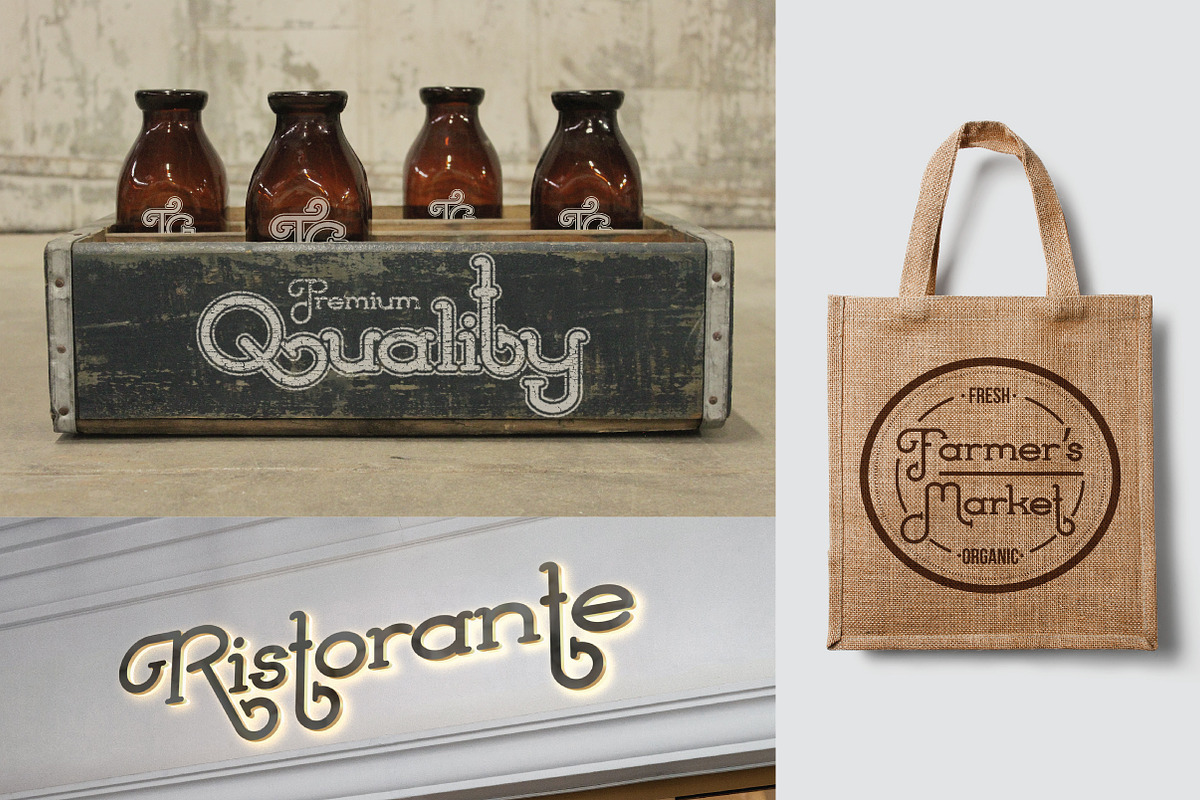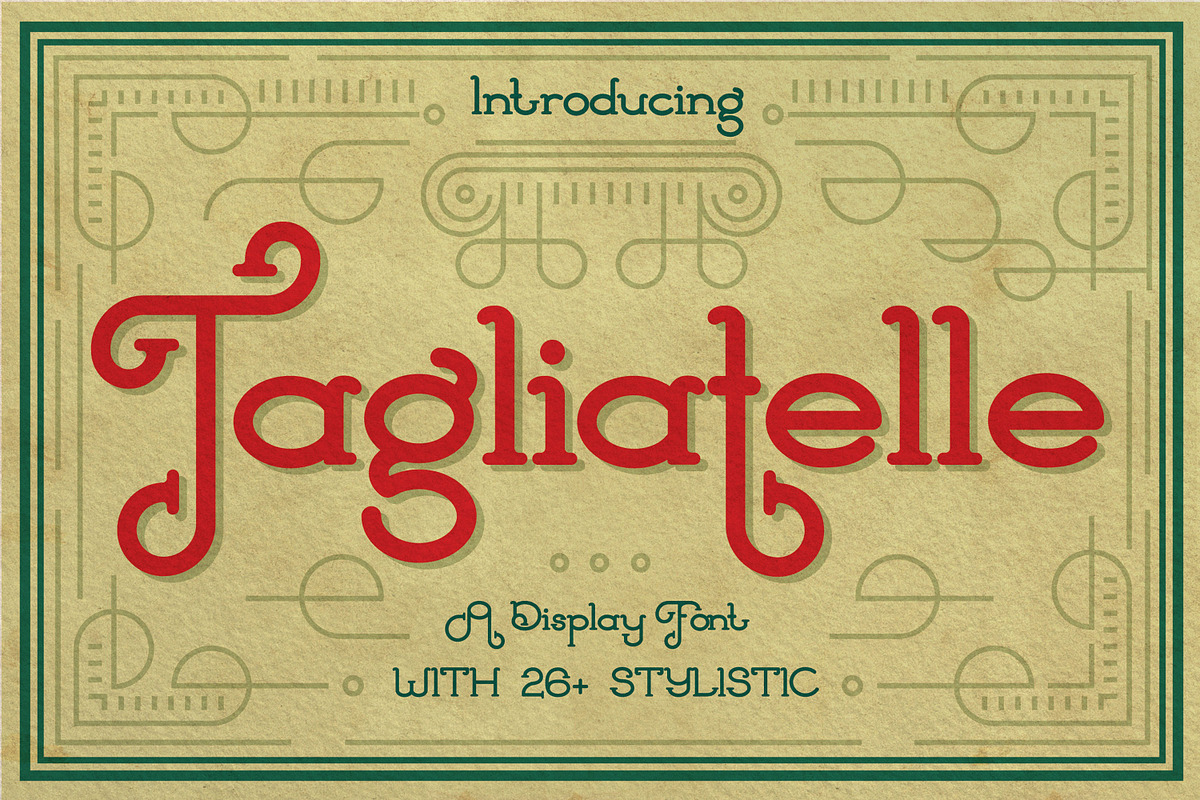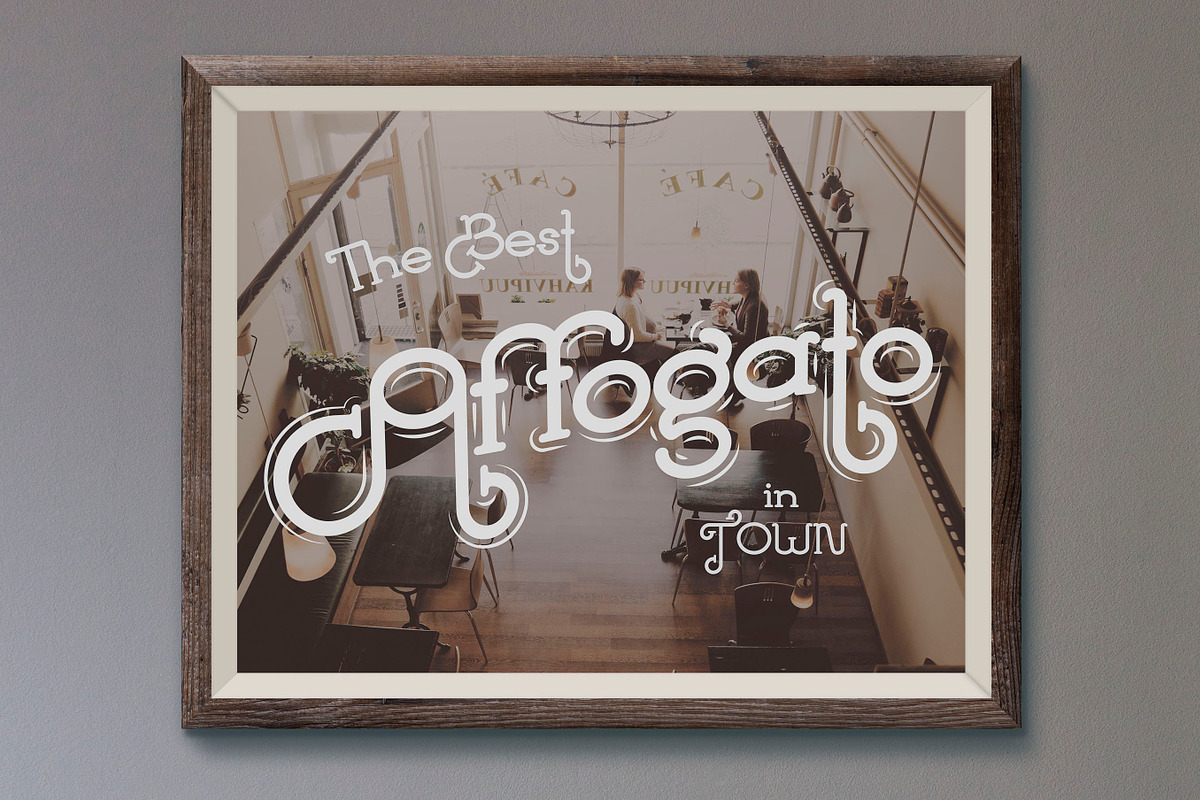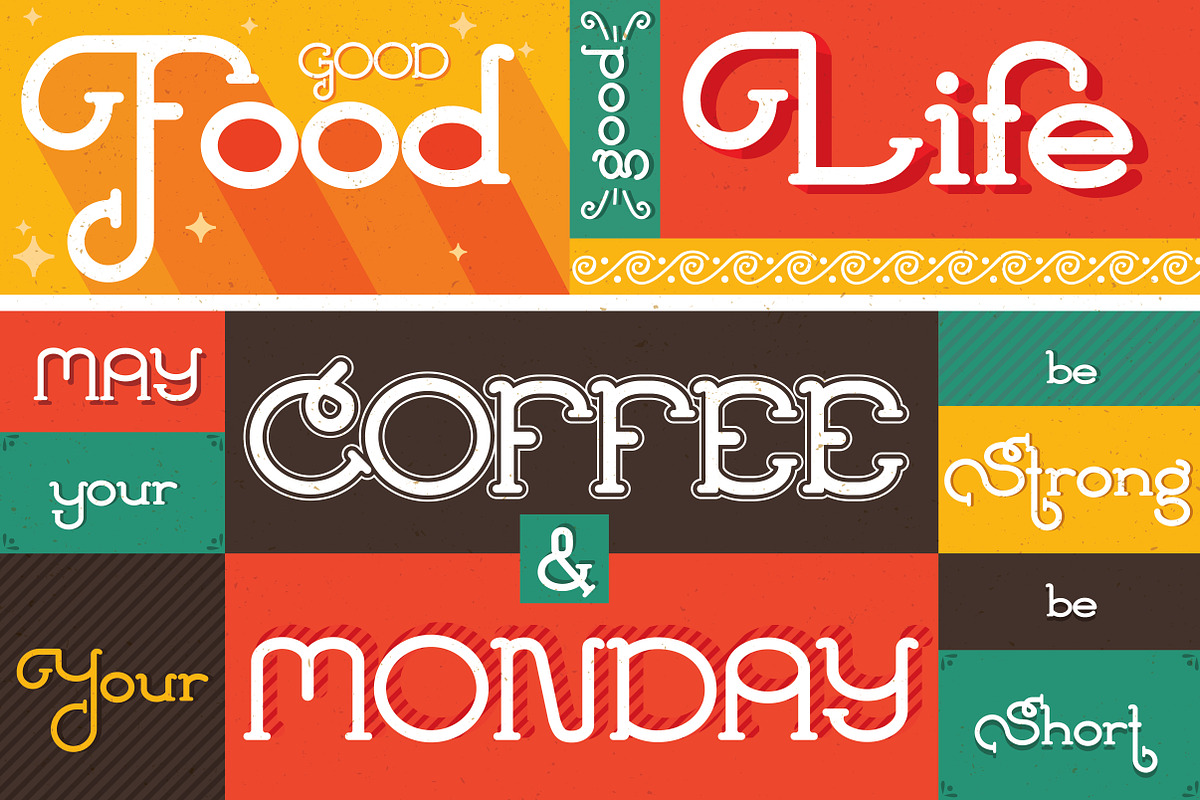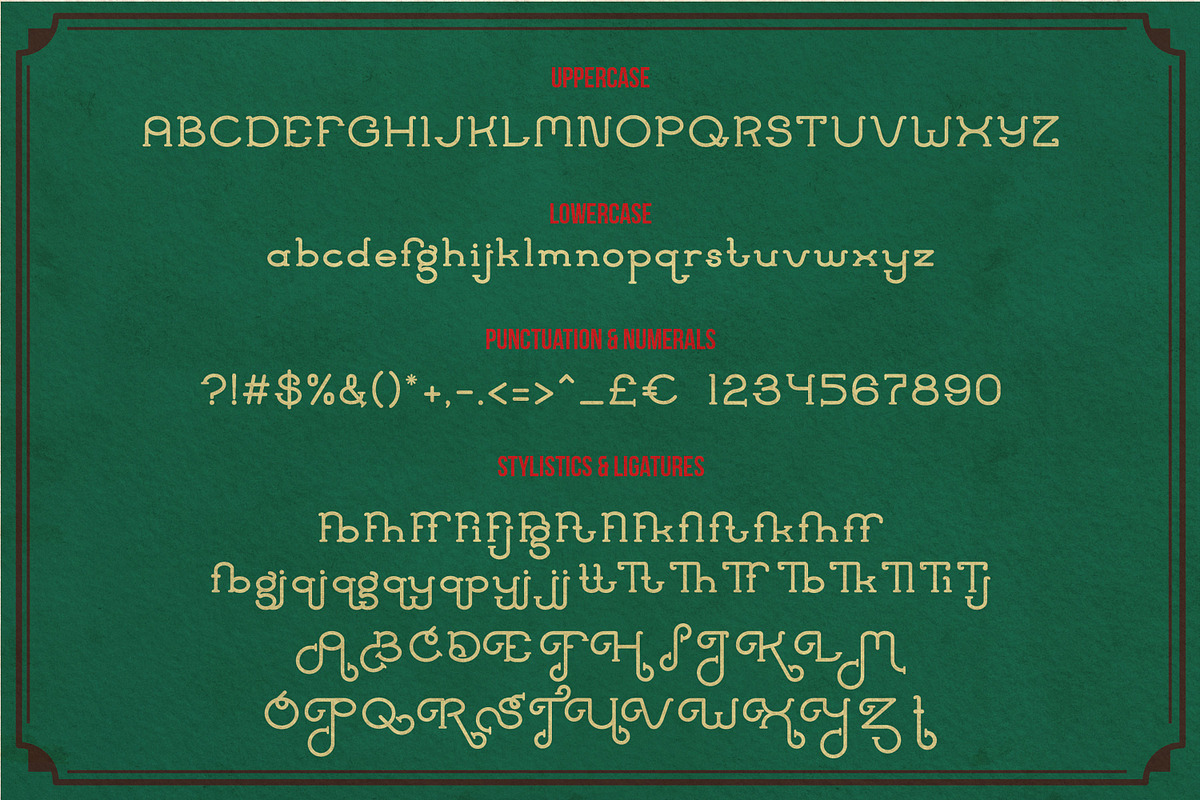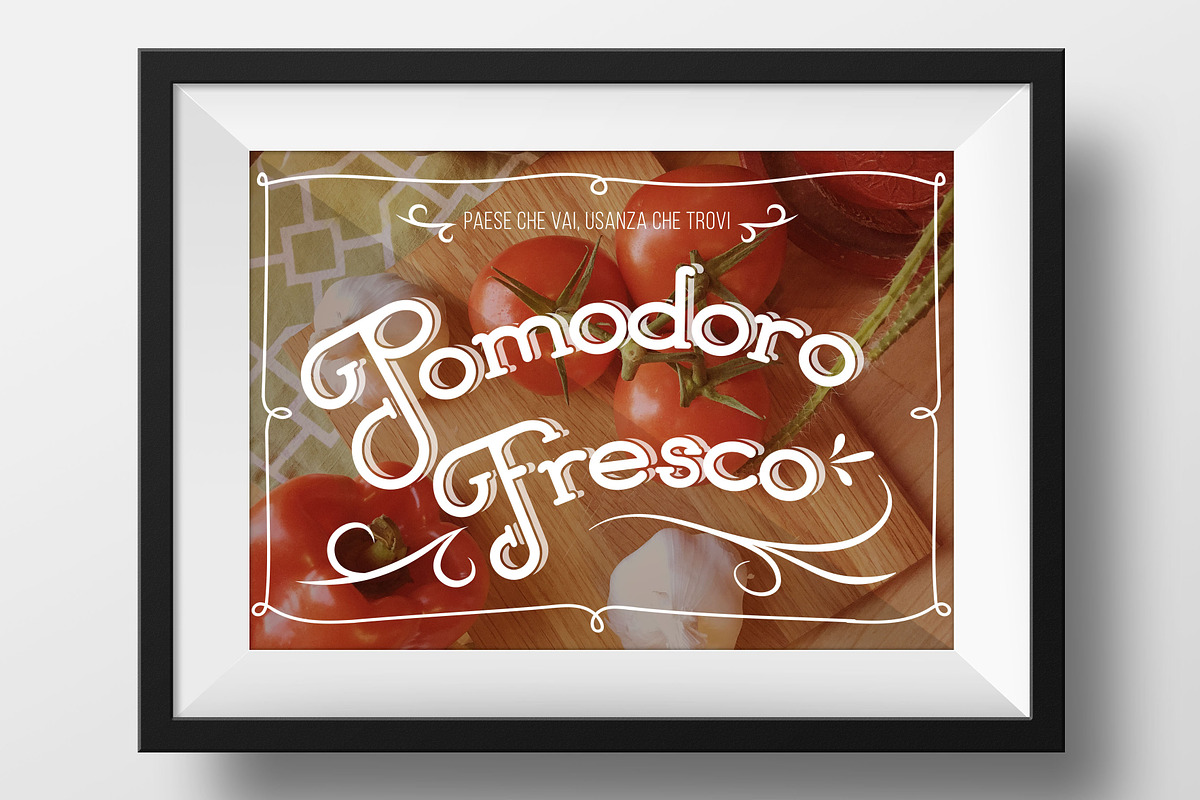
Tagliatelle Font
Tagliatelle Font by KnickKnacks is a font selected for branding, posters, packaging, typography.
- Tagliatelle consist of 150 glyphs including ligatures and 27 stylistics.
Why Tagliatelle Font is worth a look
Tagliatelle Font by KnickKnacks fits naturally into Branding, posters, packaging, typography.